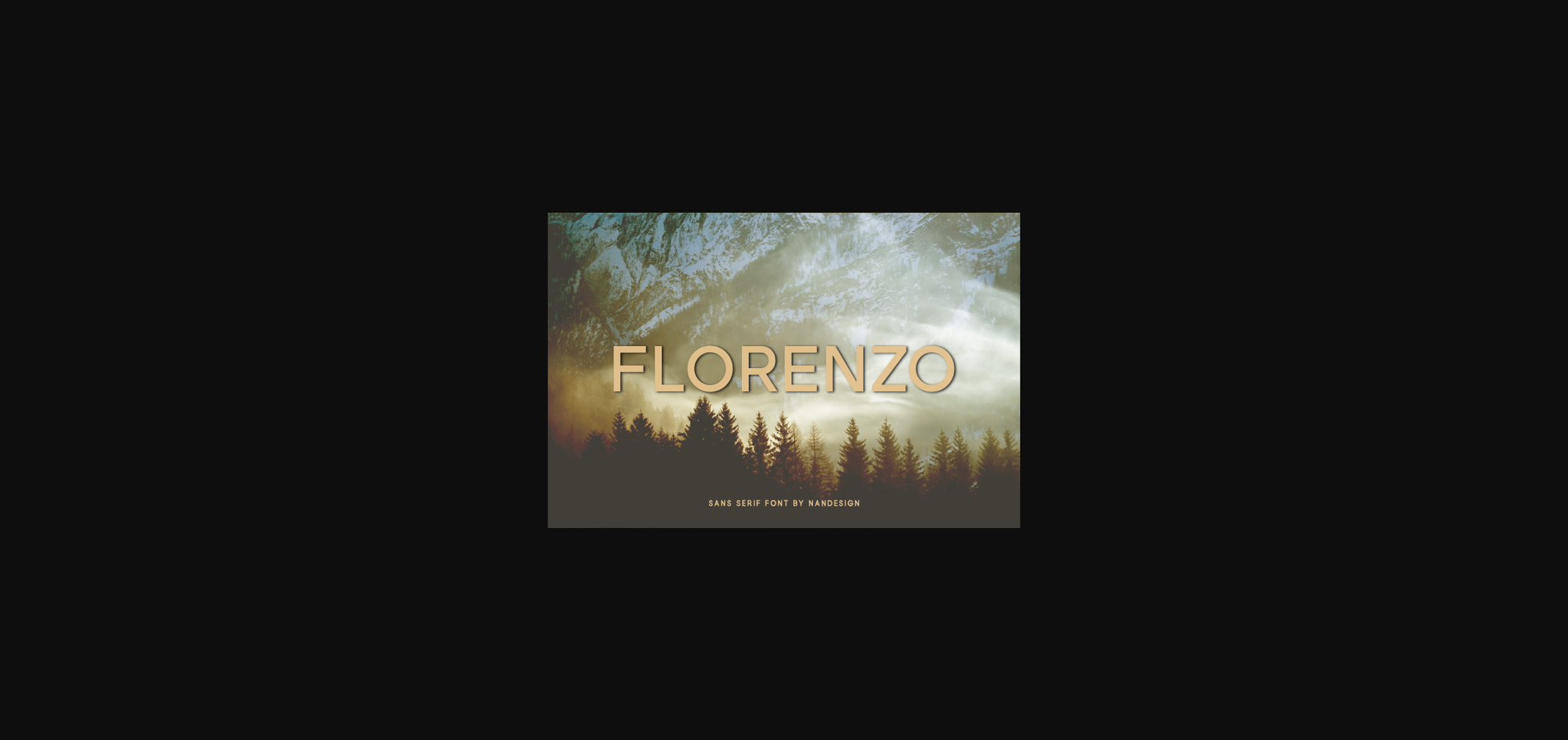
Florenzo Font
About Florenzo Font
Florenzo is a cool and useful sans serif font. It can be used for various purposes such as logos, invitations, headings, t-shirts, letterhead, signage, labels, news, posters, badges and so much more.